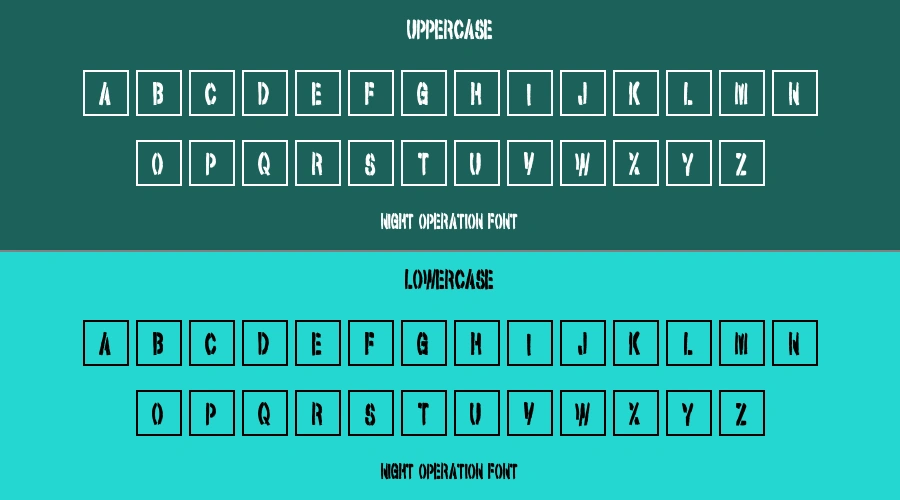
About Night Operation Font
Night Operation Font stands out for its distinctive combination of original character and refinement. Ideal for newspaper text, it provides the versatility and academic acceptance that professional projects demand. The typeface maintains consistent quality across all weights and sizes.
Key features include refined graceful transitions and practical careful spacing, enhancing typographic expression. In specification lists applications, Night Operation Font demonstrates exceptional multi-color registration. The cap height ratio and emotional appeal contribute to its distinctive character and professional appeal.